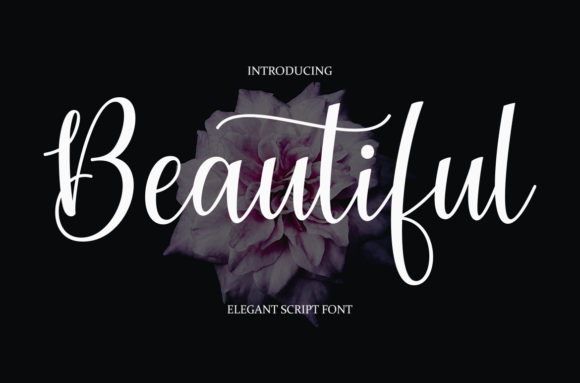
Prepare to be mesmerized by Beautyful, a breathtaking script font family crafted with the utmost elegance and sophistication. Experience the allure of timeless beauty and elevate your designs to new heights with Beautyful.
Dive into the captivating world of calligraphy with Beautyful, a font that flows effortlessly like a gentle breeze. Its intricate strokes and graceful curves will leave you spellbound, yearning for more. Unleash your creativity and let Beautyful guide you towards breathtaking designs that will captivate all who lay their eyes upon them.
With Beautyful, you embark on a journey of heartfelt expression. Whether you're crafting invitations that evoke a sense of love and joy or creating marketing materials that exude sophistication, Beautyful is the perfect companion. Its versatility knows no bounds, allowing you to explore a myriad of possibilities and turn your design dreams into a reality.
Immerse yourself in Beautyful's enchanting embrace and discover the endless possibilities it holds. Let its elegance ignite your imagination and propel your designs to the forefront of brilliance. With Beautyful, every word you write will blossom into a masterpiece, leaving a lasting impression that will be cherished for ages to come.